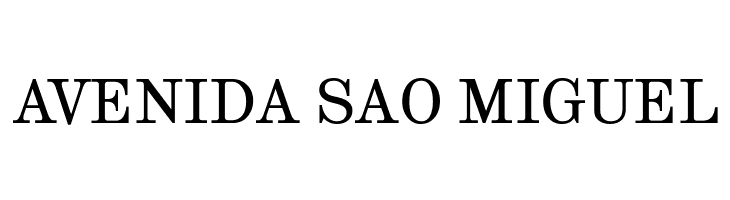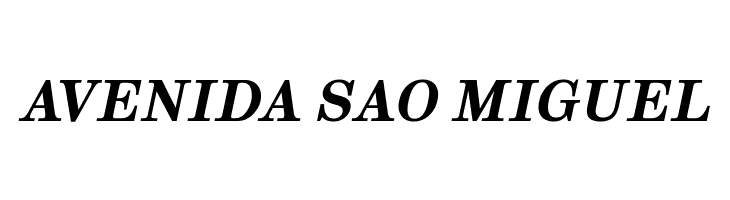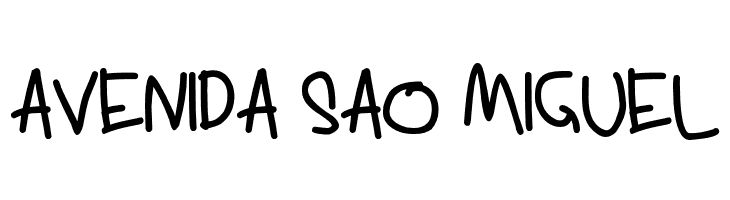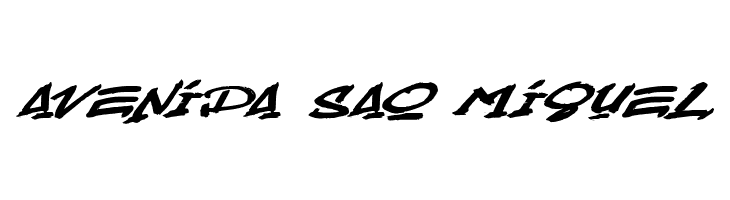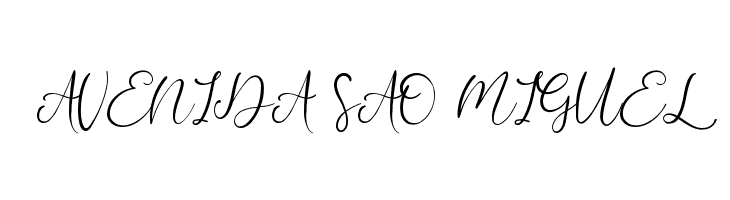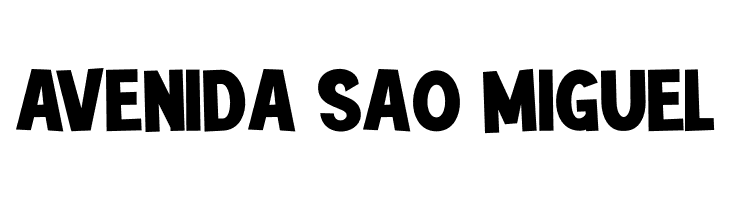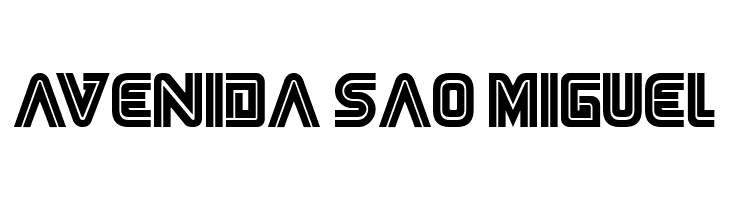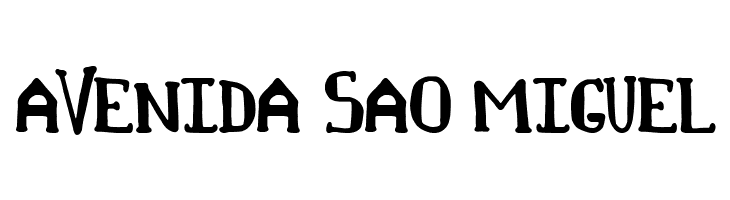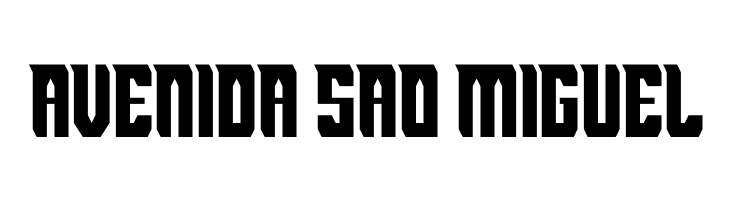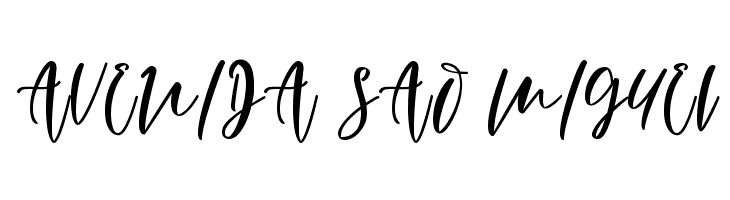
A playful, rounded font with dynamic curves and varying stroke thickness.
A lively and energetic script font with fluid, connected letterforms and a handcrafted appearance.
A playful, handwritten font with bold, rounded strokes and a casual, energetic feel.
A bold, blocky font with a strong, industrial feel.
A gothic, dramatic font with sharp, angular lines and pointed serifs.
A bold, dripping font perfect for spooky or playful themes.
A bold, futuristic font with geometric and tech-inspired elements.
A bold, hand-drawn font with playful, decorative patterns.
A playful, bold font with rounded, thick letterforms and a friendly appearance.
A playful, casual handwritten font with an organic flow.
A classic serif font with high contrast and elegant serifs.
A bold serif font with strong, classic lines and pronounced serifs.
A bold, italic serif font with strong strokes and elegant slant.
An elegant italic serif font with classic, flowing letterforms.
A bold, geometric font with angular lines and a modern aesthetic.
A bold, playful, hand-drawn font with a whimsical and artistic style.
A bold, geometric font with sharp, angular lines and a modern industrial style.
A bold, handwritten font with dynamic strokes and a modern, artistic flair.
A lively handwritten font with fluid, dynamic strokes and a casual style.
A bold, distressed font with a futuristic and edgy design.
A lively and expressive script font with fluid, cursive strokes.
A bold, dynamic script font with a brush-like texture and energetic style.
A bold, dynamic script font with expressive, fluid strokes.
A dynamic, handwritten-style font with fluid strokes and a modern, artistic flair.
A bold, playful font with rounded strokes and a friendly appearance.
A decorative and elegant script font with ornate uppercase letters and smooth lowercase characters.
A flowing, cursive font with elegant loops and swashes, perfect for creative projects.
A bold, graffiti-inspired font with sharp, angular edges and a dynamic urban aesthetic.
A bold, playful font with a hand-drawn, informal style.
A bold, rugged font with a handcrafted, distressed appearance.
A playful, handwritten font with a casual and whimsical style.
An elegant, flowing script font with artistic loops and playful embellishments.
A graceful script font with fluid, interconnected strokes.